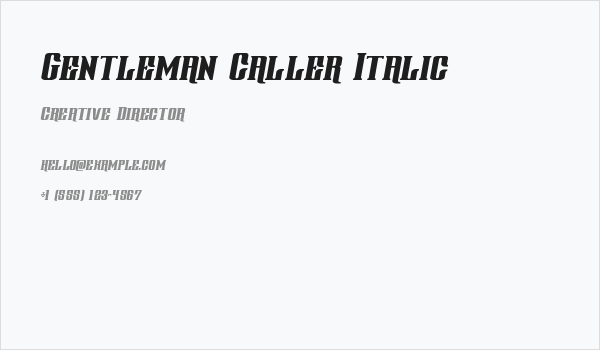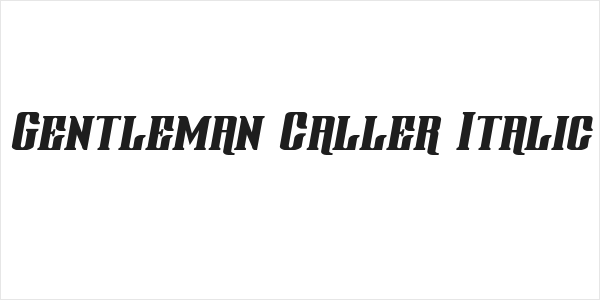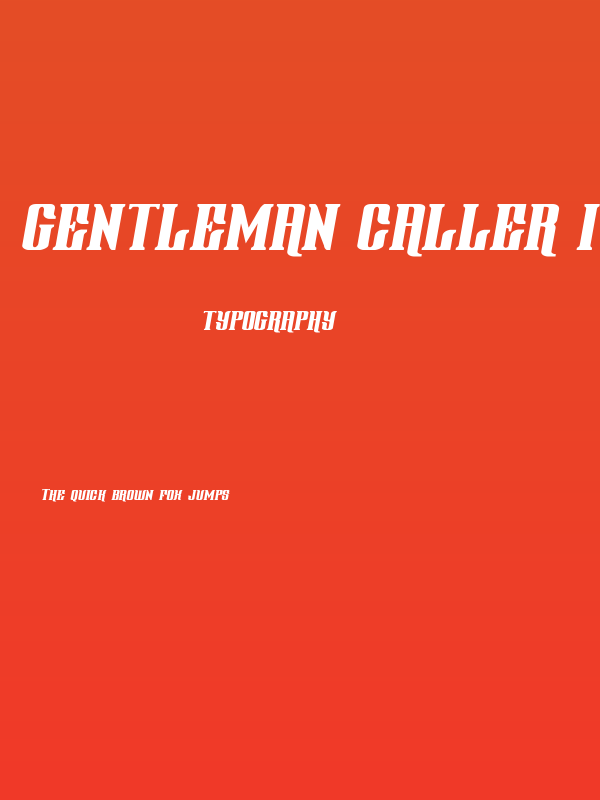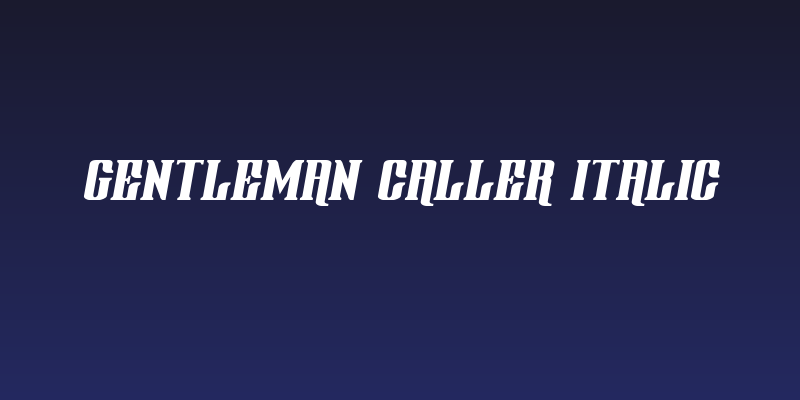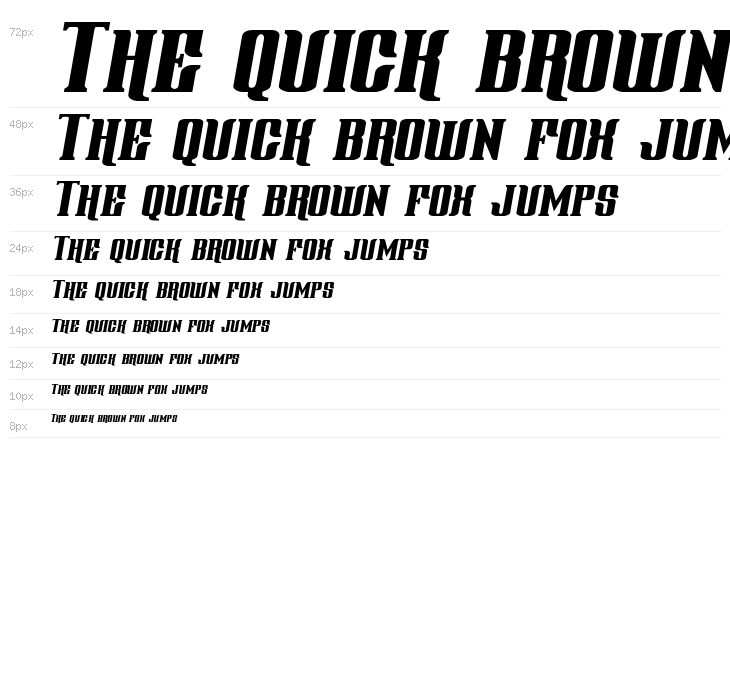
Gentleman Caller Italic Font
Gentleman Caller Italic Description
This font features a bold and dynamic style with a strong italic slant, giving it a sense of movement and energy. The characters are designed with sharp, angular edges and a consistent stroke width, creating a uniform and cohesive appearance. The uppercase letters are particularly striking, with a tall and narrow form that emphasizes their verticality. The lowercase letters maintain the same angular style, ensuring readability while adding a touch of elegance. The numerals are bold and easily distinguishable, making them suitable for various applications. Special characters are included, maintaining the overall aesthetic of the font. This font is ideal for projects that require a bold and impactful presence.
| Proposed Projects | Ideal for branding, posters, headlines, and any design needing a bold statement. |